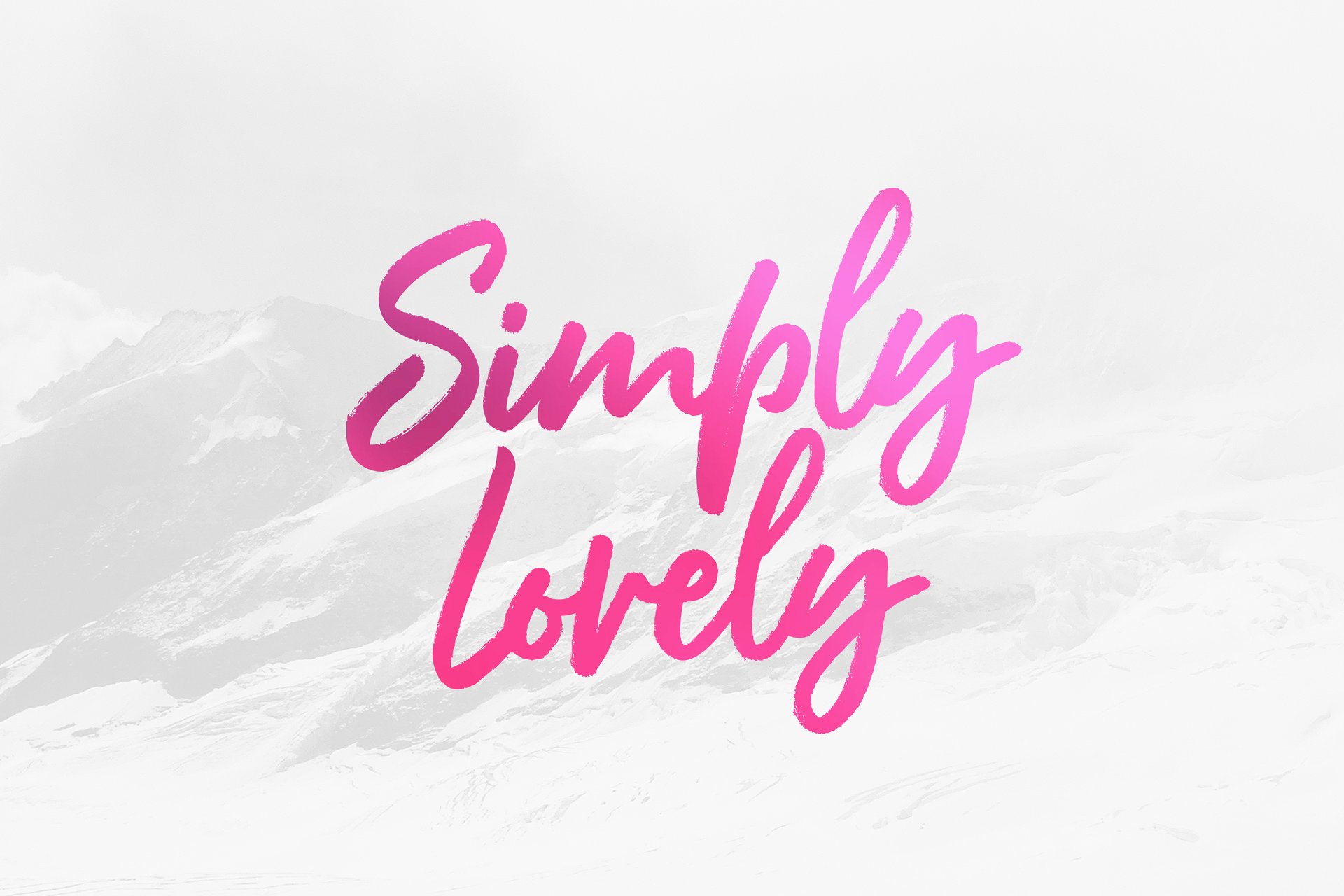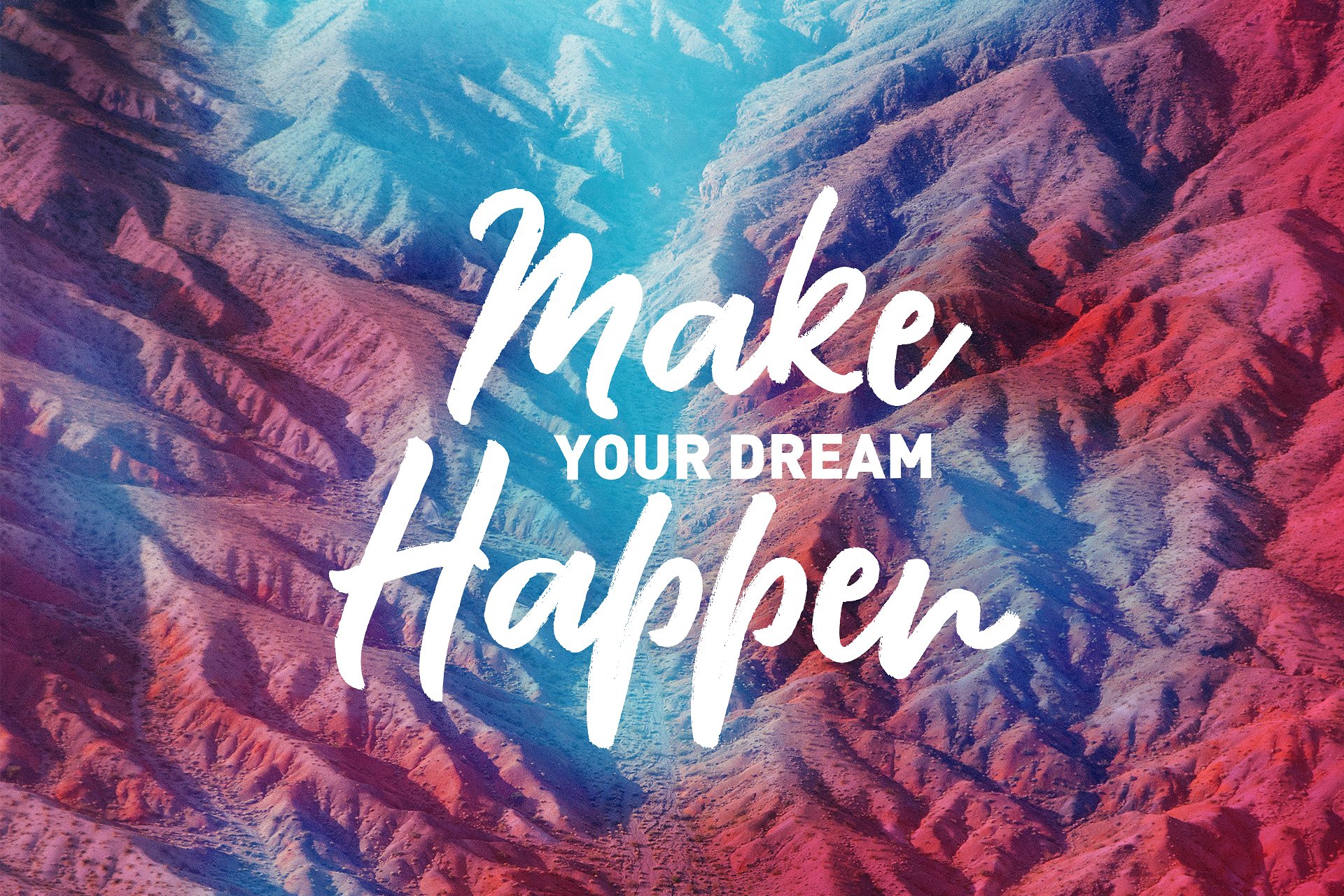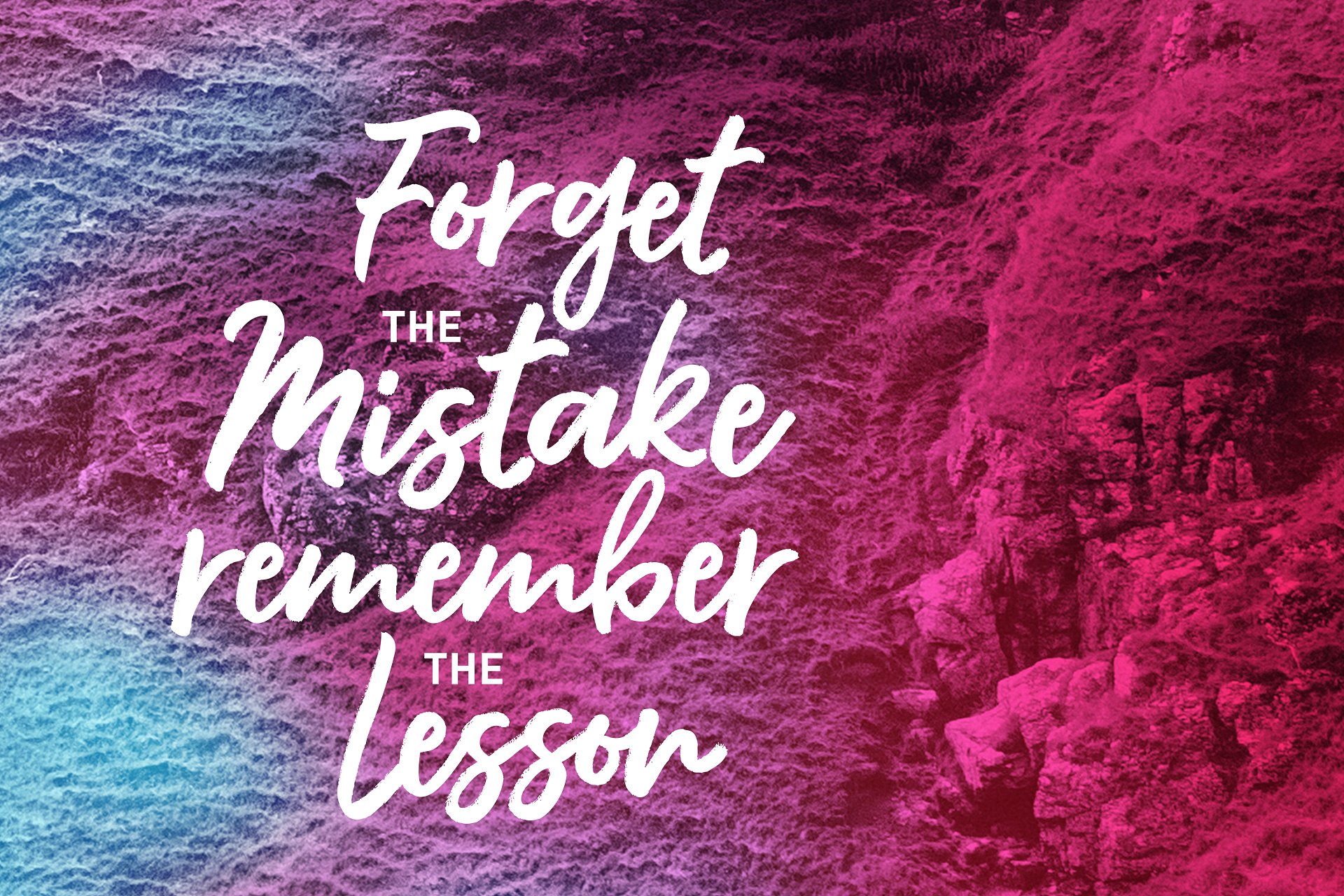
Introduction to Rouged Font
Have you ever been working on a creative project, pouring your heart and soul into every detail, only to realize that the perfect font is missing? For designers, this can be a frustrating experience, especially when it comes to finding the right script to complement your design. This is where the Rouged Font comes in – a modern script style that is sure to elevate your design game.
With its thick weight and clean curvature, the Rouged Font is a high-quality design resource that can add a touch of sophistication to any project. Whether you’re working on a logo, brochure, or website, this font is sure to impress. Plus, its transparent background makes it easy to customize and integrate into your design.
Key Features of Rouged Font
- High-quality, elegant design perfect for creative projects requiring a sophisticated touch.
- Features a transparent background, allowing for seamless integration with various design elements.
- Includes a wide range of characters, including uppercase and lowercase letters, numbers, and special symbols.
- Designed to be highly legible and versatile, suitable for use in various design contexts, from headings to body text.
Honest Review: Rouged Font
As a designer, I’m always on the lookout for high-quality design resources to elevate my creative projects. The Rouged Font is one of the latest additions to my collection, and I’m excited to share my thoughts on it.
What works well: ✨ The Rouged Font has a unique, elegant design that makes it perfect for luxury brands and high-end projects. The font’s transparent background allows for seamless integration with any background image or color, giving it a sleek and modern look.
- High-quality design: The Rouged Font is expertly crafted, with crisp lines and precise details that make it a joy to work with.
Limitations: ⚠️ While the Rouged Font is an excellent addition to any design collection, it may not be suitable for projects that require a more playful or casual tone. Additionally, the font’s unique design may not be easily readable in smaller font sizes.
Overall impression: I’m thoroughly impressed with the Rouged Font, and I’m confident it will become a staple in my design arsenal. Its high-quality design, transparent background, and free download make it an excellent resource for any creative project.
Rouged Font is a versatile design resource that can elevate your creative project to the next level. With its high quality and transparent background, it’s perfect for designers and non-designers alike.
To get the most out of Rouged Font, use it in combination with a transparent background to create a stunning design effect. You can also experiment with different font sizes and colors to create a unique look.
Rouged Font is perfect for any creative project, including logos, business cards, brochures, and social media graphics. It’s also great for adding a touch of elegance to your presentations and documents.